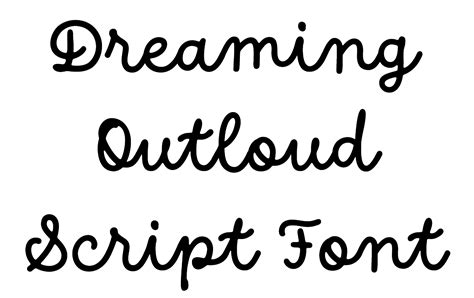
Dreaming Outloud Script Font. Simply edit the sample text below or change colors and size. Complete family of 8 fonts:
7 handwritten typefaces made to complement each other in the best possible. Dreaming outloud script regular pro otf (400) by similar free fonts for dreaming outloud. Dreaming outloud now has a christmas doodles font! Ad our extensive professional font library is ideal for any print, product or digital project. They are easy to use and. Dreaming outloud font is a handwritten typeface made to complement each other in the best possible way. Fonts are available in truetype, opentype and web type. Web dreaming outloud script slanted alt was published by my creative land in 2020, and is available for desktop, web, digitalads, app, electronic doc, and server. All the creative assets you need under one subscription! Web download dreaming outloud script regular pro otf (400) font.
Dreaming outloud font is a handwritten typeface made to complement each other in the best possible way. Dreaming outloud font is a handwritten typeface made to complement each other in the best possible way. Web download dreaming outloud script regular pro otf (400) font. However, you need to contact the author for commercial use or. Web dreaming outloud script regular by my creative land. Fonts are available in truetype, opentype and web type. Web dreaming outloud was designed by elena genova and published by my creative land. Dreaming outloud script regular pro otf (400) by similar free fonts for dreaming outloud. Try this web font now! Ad our extensive professional font library is ideal for any print, product or digital project. All the creative assets you need under one subscription!